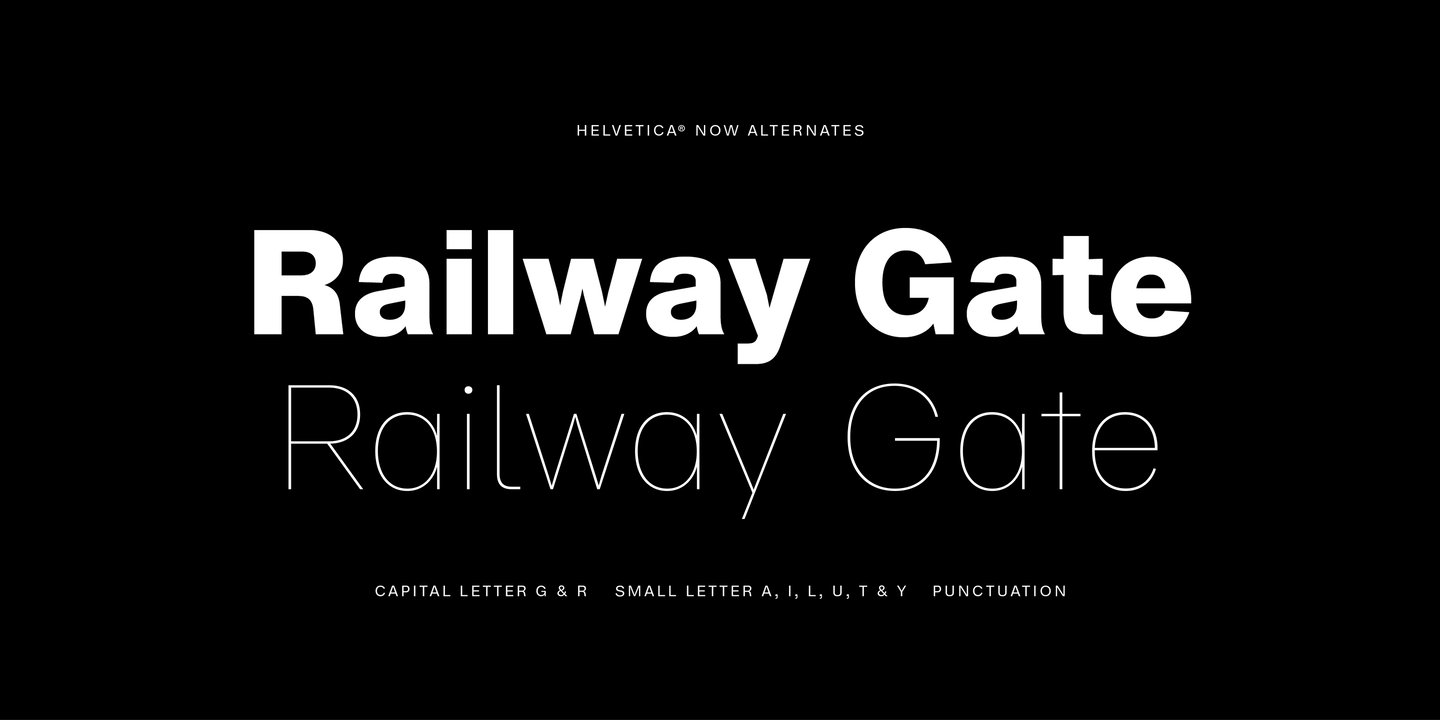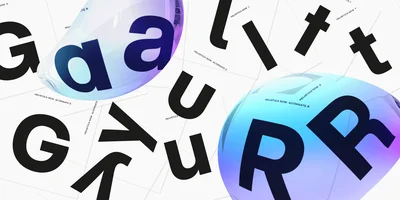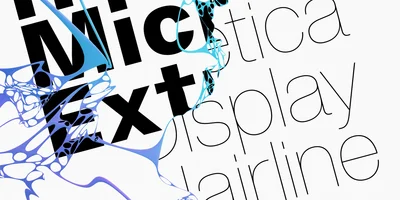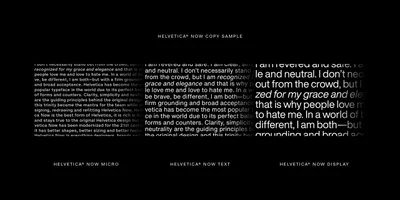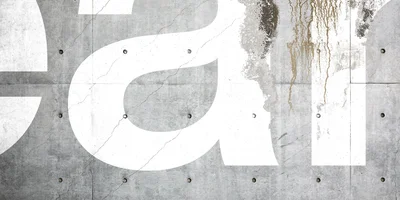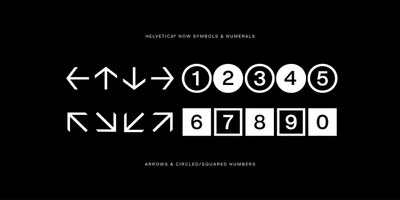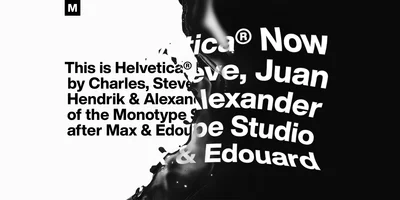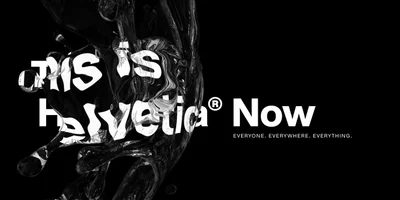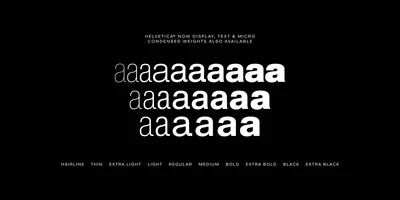
Inter vs Helvetica Now
Inter is a popular open-source alternative to Helvetica Now's neo-grotesque design. At 88% similarity, Inter delivers a modern, clean aesthetic. Compare which works better for branding and editorial projects.
| Feature | Inter | Helvetica Now |
| Type | Free | Premium |
| Variable Font | Yes | No |
| Weights | Variable (100-900) | Multiple |
| Language Support | latin, latin-extended, cyrillic, cyrillic-extended, greek, greek-extended, vietnamese | latin, latin-extended, cyrillic, greek |
Performance Comparison
| Metric | Inter | Helvetica Now |
| Weights | 9 (var) | N/A |
| Italics | Yes | N/A |
| Variable Font | Yes (2 axes) | N/A |
| Language Groups | 7 | N/A |
| x-Height Ratio | 0.546 | N/A |
| Cap Height Ratio | 0.728 | N/A |
Recommended: Inter
- Shares Helvetica Now's modern character
- Variable font with continuous weight adjustment
- Supports 7 scripts including cyrillic and cyrillic-extended
- Delivers a modern, clean, professional aesthetic
- Popular in enterprise-corporate and financial-services design
Consider: Helvetica Now
- Designed specifically for branding and editorial